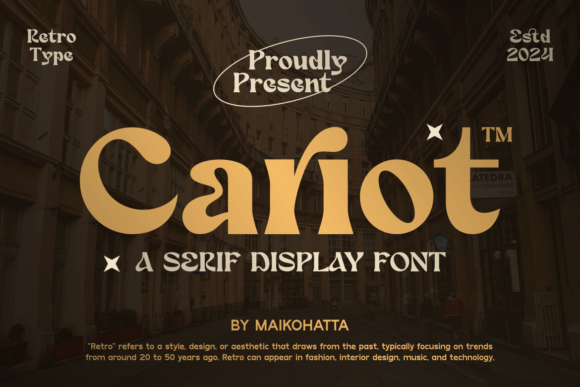
Introducing Cariot: The Modern Serif Display Font You Need
Have you ever been in the middle of a design project, and suddenly, you’re stuck on finding the perfect font? I certainly have. It was during one of those moments that I stumbled upon **Cariot**, a beautiful Serif Display font that has since become a staple in my design toolkit. In this article, I’ll share my experience with Cariot, its features, and how you can make the most of it in your designs.
The Design Moment That Led Me to Cariot
I was working on a luxury brand’s brochure, aiming for a sophisticated yet modern look. The client wanted a font that exuded elegance but wasn’t too over-the-top. After hours of scrolling through font libraries, I finally stumbled upon Cariot. Its balanced proportion of stroke thickness and fineness immediately caught my eye, making it easy to read while standing out. It was love at first sight! 💕
An Honest Review of Cariot
What I Love About Cariot ✨
- ✅ Balanced Stroke Thickness: The way Cariot balances thick and thin lines creates a visually appealing contrast that’s hard to achieve with other fonts.
- ✅ Easy Readability: Despite its elegant look, Cariot remains easy to read, making it perfect for both headings and body text.
- ✅ Modern yet Classic: Cariot brings a modern twist to traditional serif fonts, making it versatile for various design projects.
- ✅ OpenType Features: Cariot comes with a range of OpenType features, including stylistic alternates and glyphs, which can be used to add more personality to your text.
- ⚠️ Limited Use in Small Sizes: While Cariot is generally easy to read, its elegant lines and fine details might not be as clear in very small font sizes.
- ⚠️ Not Ideal for Body Text: While it’s possible to use Cariot for body text, it’s primarily designed for headings and display purposes. For longer texts, a more straightforward font might be more suitable.
The Backstory of Cariot
Cariot was designed with the modern designer in mind. Its creator aimed to craft a font that was not only beautiful but also versatile, capable of elevating any design project from luxury brands to elegant wedding invitations. The inspiration came from classic serif fonts but with a contemporary twist, making Cariot both timeless and trendy.
Q: Is Cariot suitable for body text?
A: While Cariot can be used for body text, it’s primarily designed for headings and display purposes. Its elegant design works best when you want to make a statement.
Q: Does Cariot support OpenType features?
A: Yes, Cariot comes with a range of OpenType features, including stylistic alternates and glyphs, allowing for more customization in your designs.